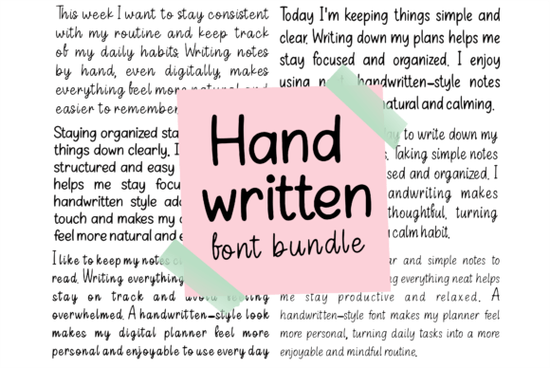
If you've ever tried to make a digital planner feel as personal as a paper journal, you know the struggle of finding the right typeface. The Handwritten Font Bundle Font is designed to solve exactly that. It brings a warm, human touch to your screen, turning cold digital notes into something that feels like your own handwriting. Whether you're a planner enthusiast, a small business owner creating printable products, or a designer working on mindful content, this collection gives you easy-to-read scripts that mimic pen on paper without sacrificing clarity.
What makes a handwritten font feel natural?
The best handwritten fonts don't look like they were drawn with a mouse. They have slight inconsistencies, varied stroke widths, and a flow that feels organic. The Handwritten Font Bundle includes styles that range from neat, structured print to flowing, casual cursive. This variety means you can match the tone of your project whether it's a clean habit tracker or a cozy personal blog. Because these fonts are designed for everyday use, they stay legible even at small sizes, which is critical for planners and note-taking apps.
- Neat print styles work great for headers and structured layouts.
- Casual cursive adds a personal feel to journal entries or product descriptions.
- Mixed weights let you create contrast without switching font families.
How does this bundle help digital planners and journalers?
If you sell printable planners or create digital content for busy professionals, your audience wants a look that feels intentional but not robotic. A handwriting font that looks too perfect can seem fake; one that looks too messy can hurt readability. The fonts in this bundle strike a balance they're natural enough to feel personal, but consistent enough to read quickly. You can use them for daily spreads, habit trackers, goal pages, and even sticker text. The result is a more intimate, mindful aesthetic that your customers will notice.
For example, imagine a weekly layout where each day's header uses a different weight from the same font family. That subtle variation gives the page a hand-drawn feel without extra work. And because these are easy-to-read scripts, even long to-do lists stay clear. If you need a bolder, more playful option, the Chunky Font offers a different vibe for headers or decorative titles.
Can small business owners use these fonts for print-on-demand?
Absolutely. Many print-on-demand sellers look for fonts that work on mugs, t-shirts, and wall art. Handwritten styles are especially popular for quote designs, family name signs, and minimalist decor. The Handwritten Font Bundle gives you multiple options so you can test which style resonates with your audience. A flowing cursive might fit a romantic quote, while a clean print works better for a motivational list. Plus, these fonts are designed to be scalable they look crisp on a phone case and still readable on a large poster.
If you're building a cohesive brand, you can pair this bundle with other complementary sets. For instance, the Hello Font adds a friendly greeting-style script that works well for signage or social media graphics.
How to get the most out of your handwritten font bundle
- Pick a primary and accent font. Choose one print-style font for body text and one cursive for headers or emphasis.
- Test readability. Apply the font to a sample planner page at a typical size (like 10–12pt) to make sure it's legible.
- Adjust spacing. Use your design software to tweak letter spacing if the font feels too tight or loose.
- Pair with a simple background. Handwritten fonts shine on solid colors or subtle textures, not busy patterns.
- Keep consistency. Stick to two fonts from the bundle per project to avoid visual clutter.
What about compatibility and file formats?
The Handwritten Font Bundle typically includes common formats like OTF and TTF, so it works with most design software (Canva, Adobe Suite, Procreate, and even Microsoft Word). Before using in a commercial product, double-check the license included with your purchase. Most Creative Fabrica bundles allow for commercial use, but it's always good to confirm. For a complete look at the collection, you can browse the Handwritten Font Bundle directly.
Practical tip: test before you commit
Before you design an entire product line, create a single mockup. Write a short phrase in your chosen font, apply it to a planner spread or a t-shirt design, and step back. Does it feel natural? Is it easy to read? Sometimes a font that looks beautiful in a preview feels overwhelming when repeated on a page. The variety in this bundle lets you switch quickly until you find the perfect match. That flexibility is what makes it a go-to toolkit for anyone turning clinical digital notes into a beautiful, personalized routine.